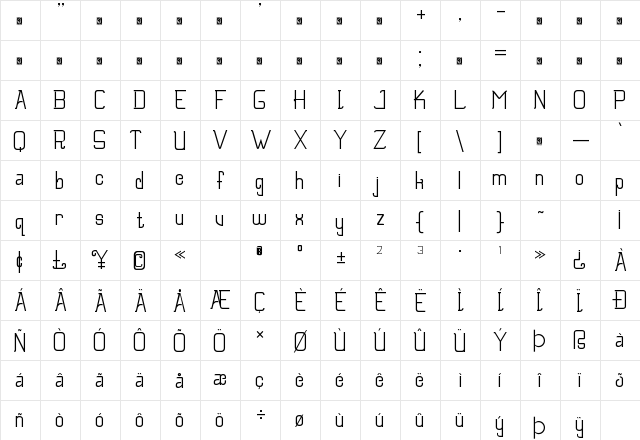
Florita Regular
| Foundry | Putracetol Studio, Karanganyar. |
| Designer | Putra Novembria Candra Kusuma |
Design Context for Florita Typeface
Florita is a composed and adaptable typeface that performs quietly and consistently across a wide range of design contexts.